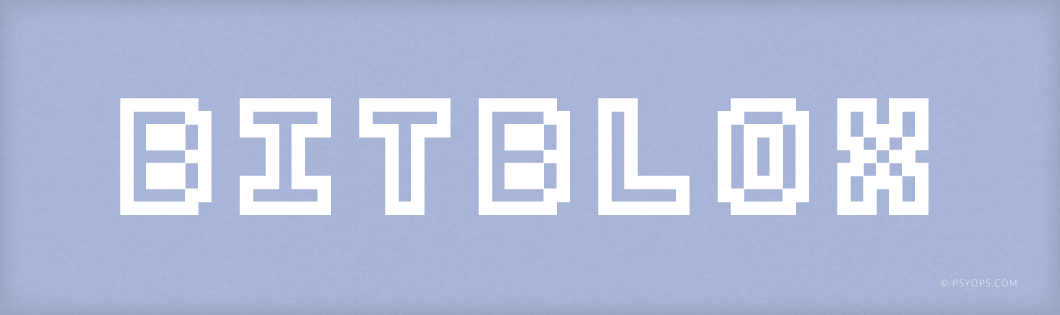
We created these fonts for our Bitblox alphabet blocks. They were inspired by the low-res pixel lettering seen on the computer screens and in video games of yore. The fonts are guaranteed to induce flashbacks in anyone who’s been exposed to consoles / terminals / IBM / DOS / AS/400 graphics in the olden days.
Each Bitblox character is built on a grid of pixels known as a matrix. The matrix creates constraint, but that very constraint yields interesting and evocative forms.
The Bitblox fonts contain Western and Eastern European characters, Mathematical symbols, Dingbats and more.